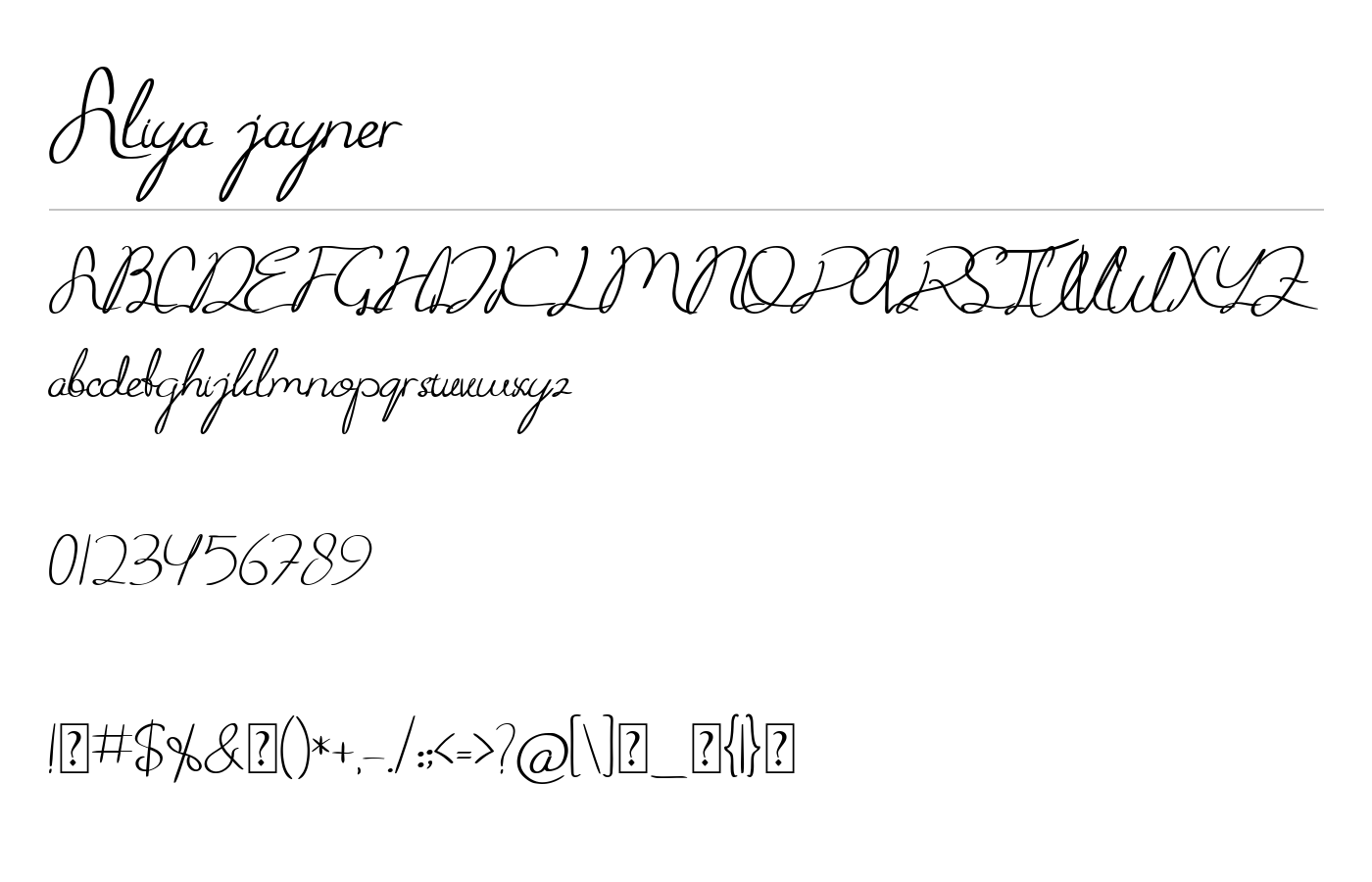
Aliya Jayner is an elegant, delicate script font with a light weight and graceful, flowing strokes that mimic natural handwriting. Its tall, slender letterforms and smooth, curved lines give it a sophisticated yet approachable feel, making it ideal for invitations, branding, and any design seeking a personal, refined touch. This font works best in decorative titles or accents, where its charm and uniqueness can truly stand out.
Aliya jayner Font
About Aliya jayner Font